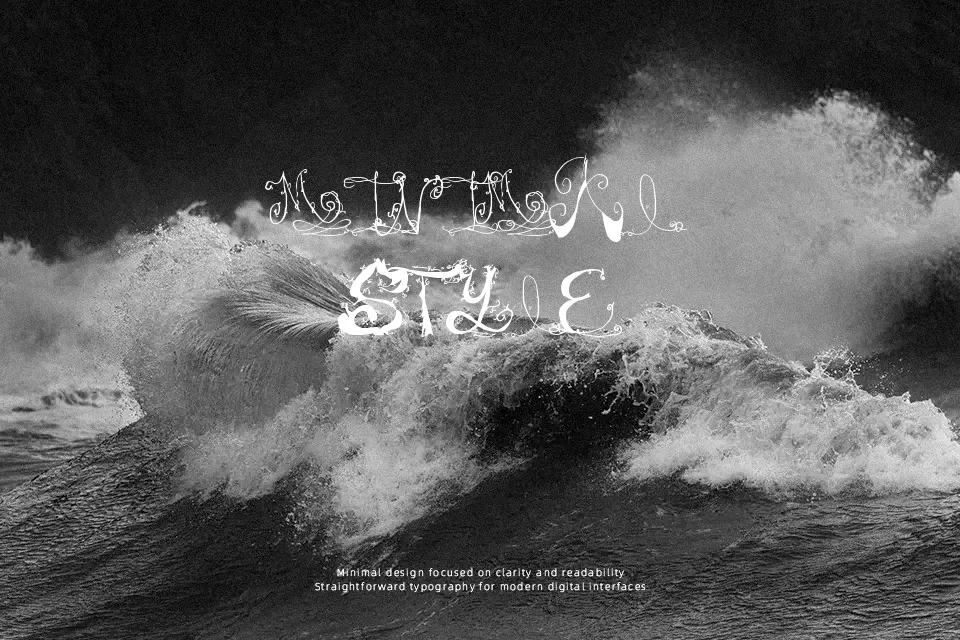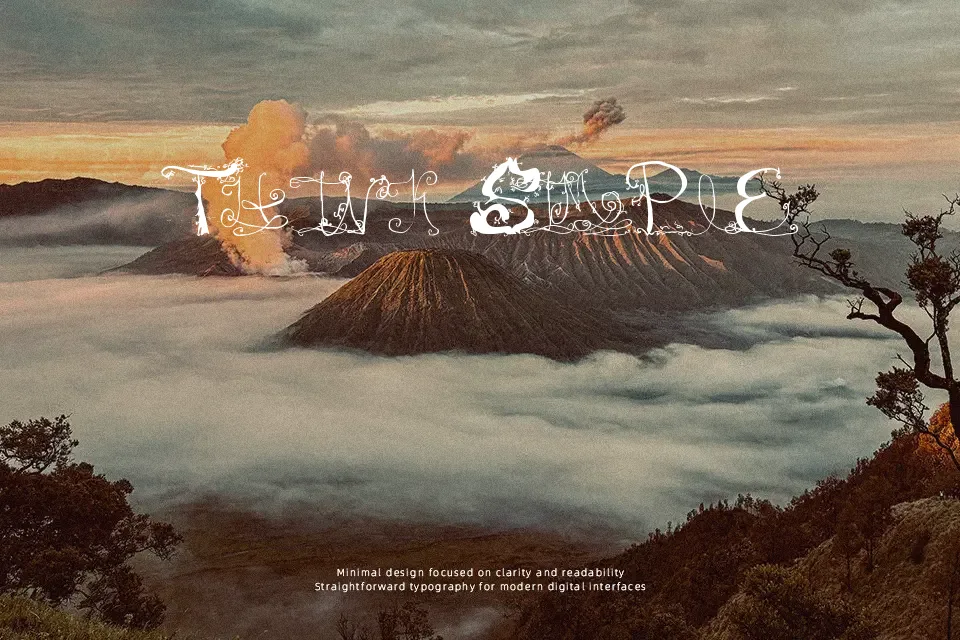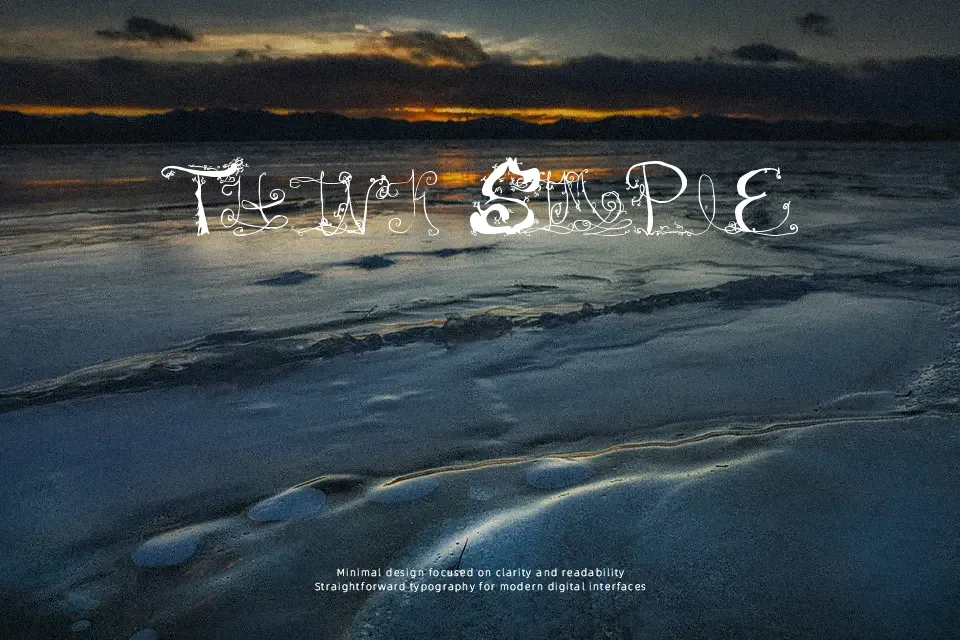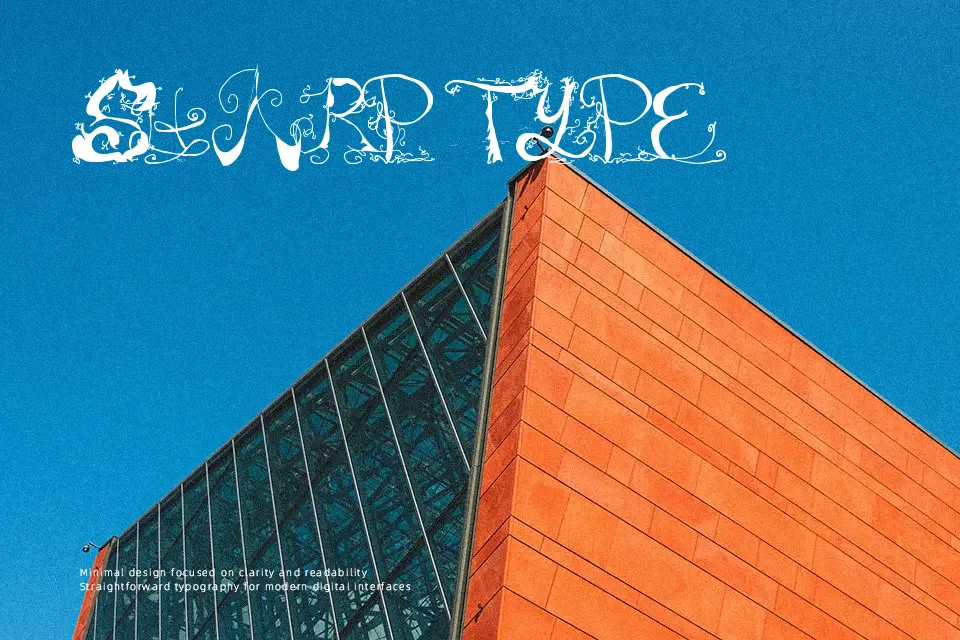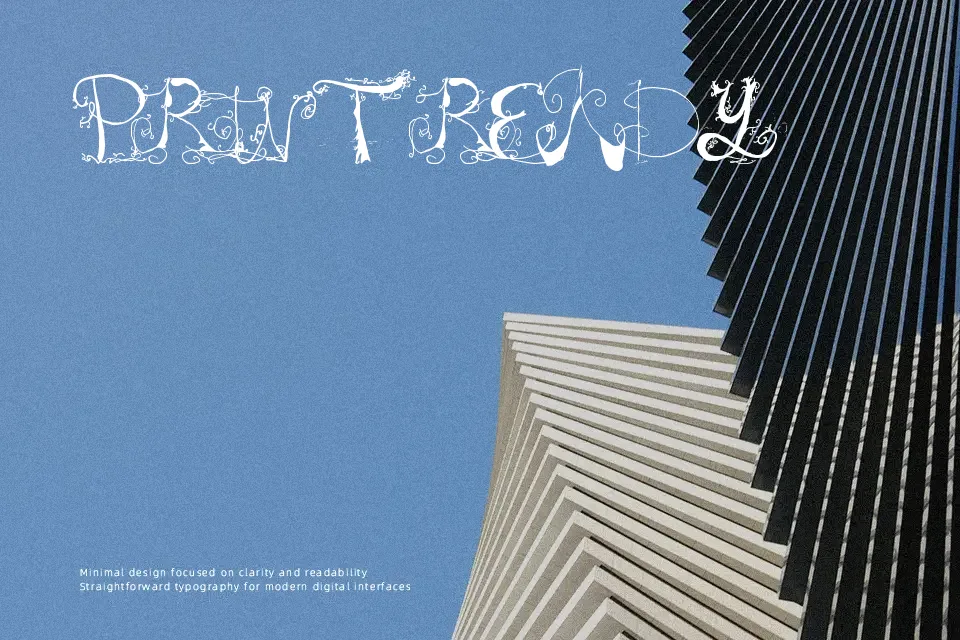
Teenage Fantasy Romance Novel Font
Designed by Hannah Summer
Teenage Fantasy Romance Novel introduces an expressive display aesthetic defined by pronounced curly terminals, varied stroke thicknesses, and spontaneous letter proportions. The typeface showcases open spacing and animated loops that produce an energetic rhythm across short headings. While lowercase and uppercase forms maintain consistent decorative flair, the intricate curvilinear strokes make extended continuous reading noticeably challenging. The font performs best when showcased in headline sizes where delicate swashes remain sharply defined and uncrowded.
fantasy novel covers
playful greeting cards
thematic party invitations
whimsical merchandise titles
continuous paragraph text
compact interface labels
technical documentation
tabular business reports
Perfect for branding, headline, and invitation, with a creative and decorative style.